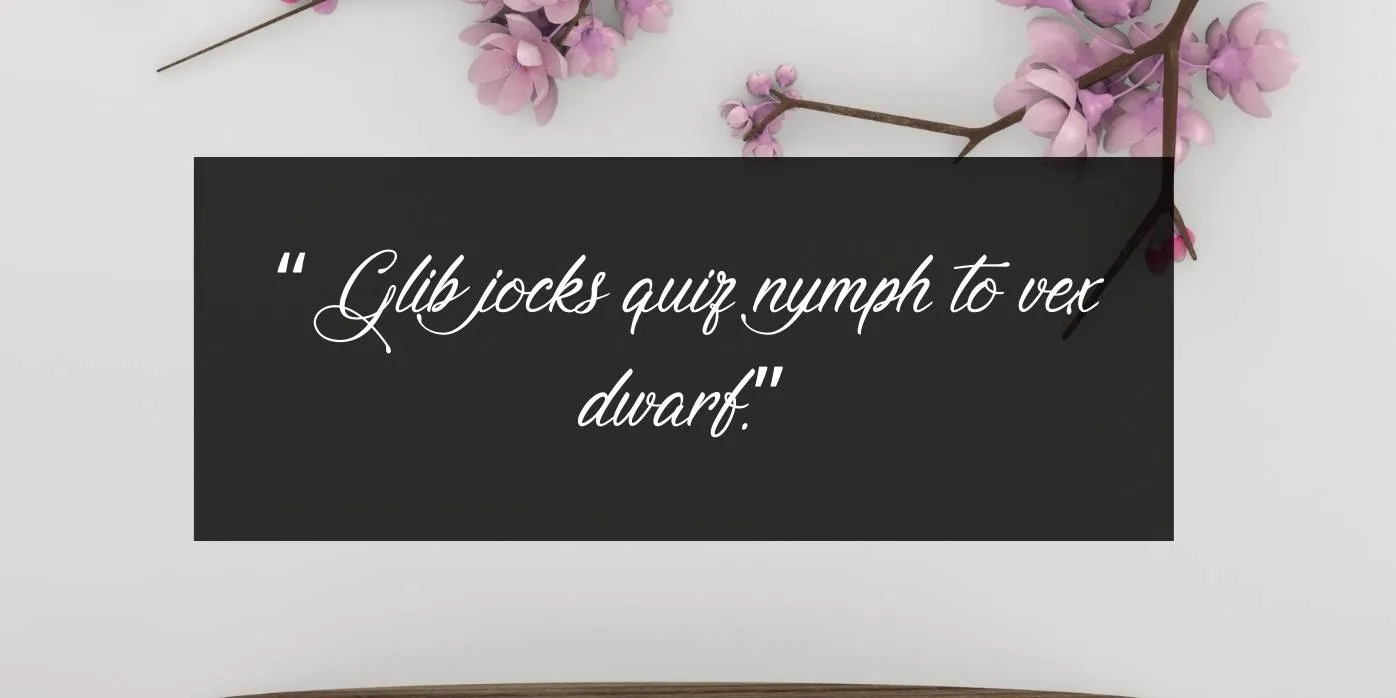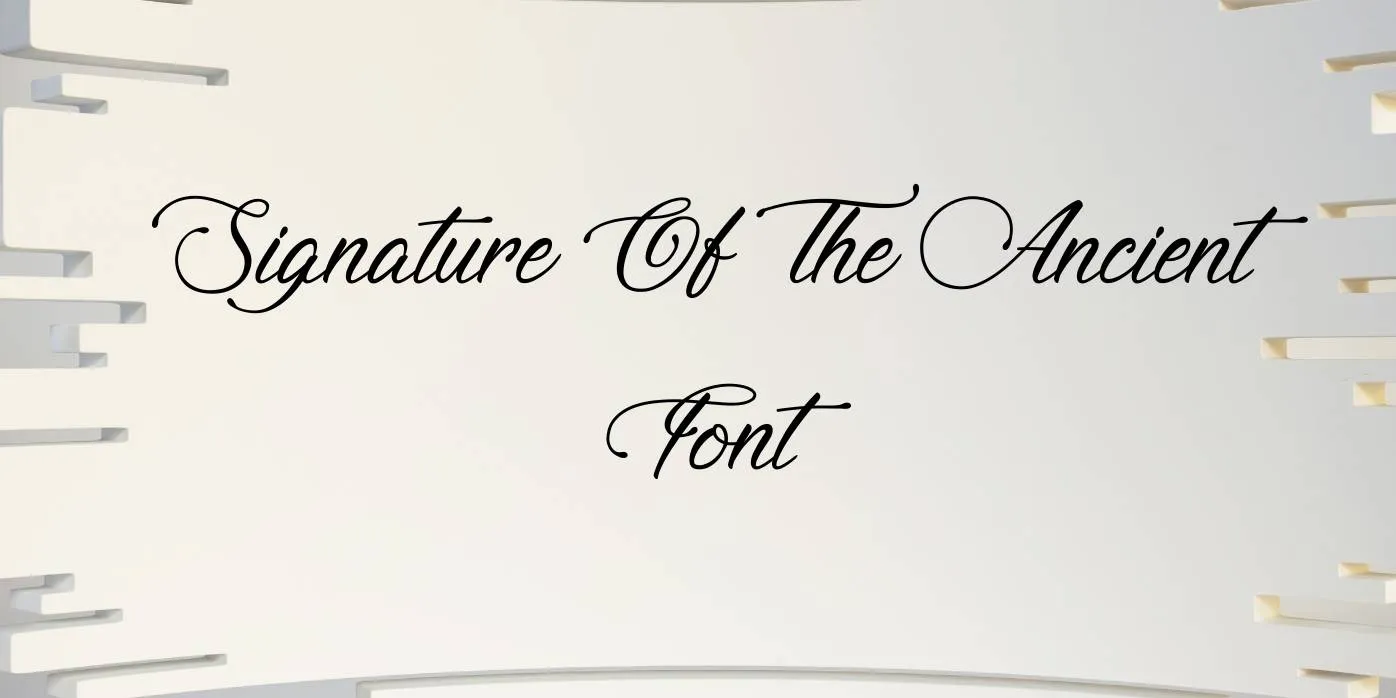
Signature Of The Ancient Font
Today we are going to present a new stylish and classic typeface that is known by the name Signature Of The Ancient Font. This gorgeous typeface was designed by a very elegant designer named Thomas Boucherie. This stylish typeface belongs to the calligraphy typeface. This tremendous typeface was released for the first time by Octotype foundry.
The main features of this typeface include its signature style, classic look, and beautiful design. All of these features help to create a very stylish and sophisticated look for your text. This typeface is perfect for any formal or professional occasion. You will have to use its similar magic font with the same features.
If you are looking for a new and stylish way to write your signature, then Signature of the Ancient Typeface is perfect for your projects. This stunning font is available in 3 special weights. These weights are Regular, Bold, and Thin. Each weight has its own unique look and feel.